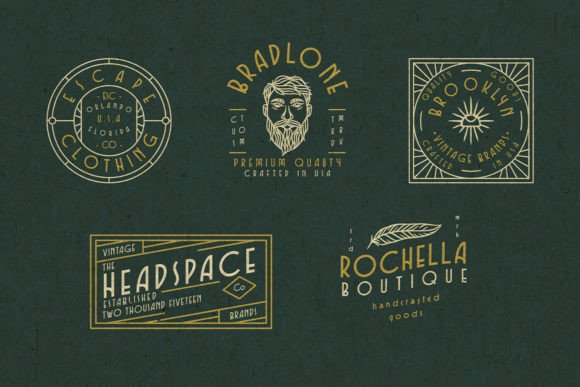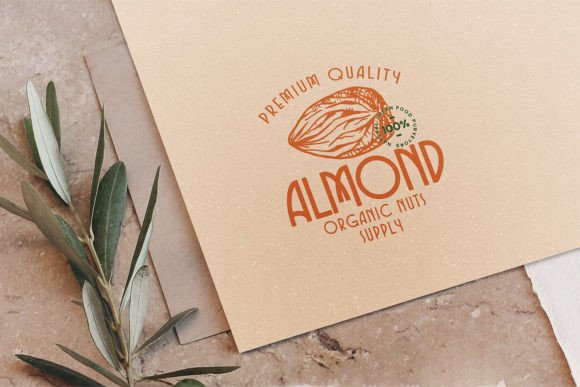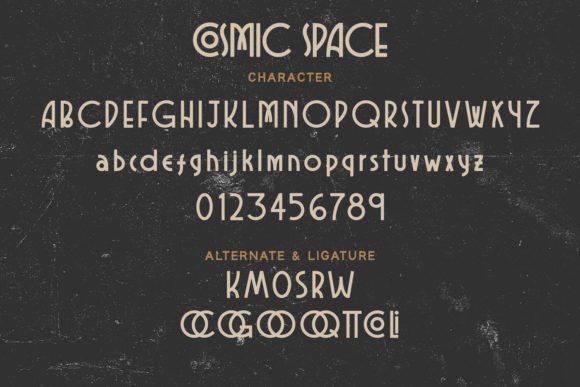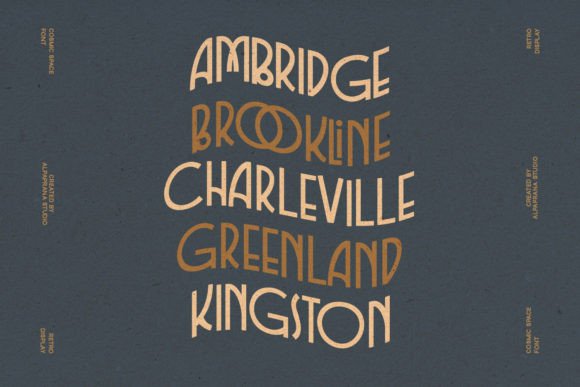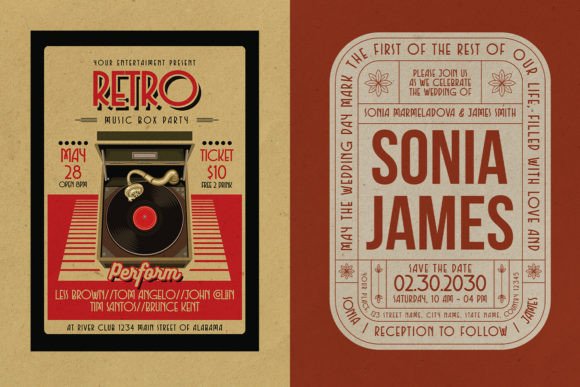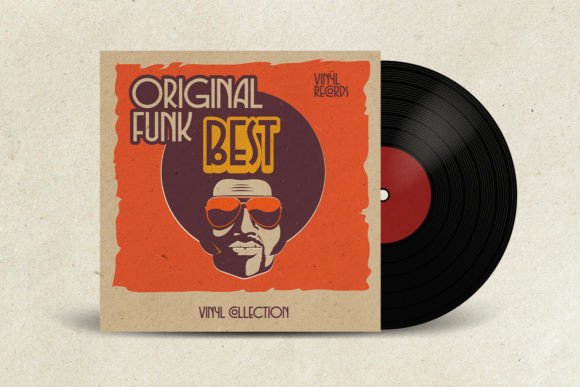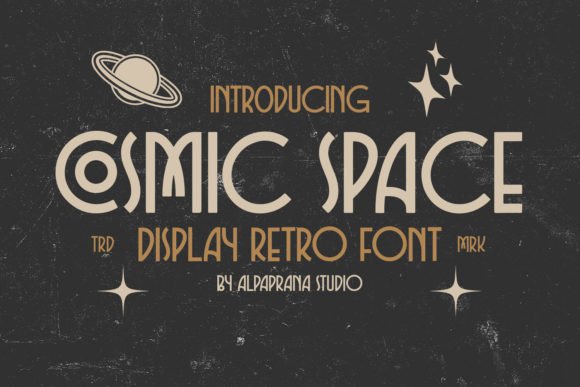
Cosmic Space Font: Elevate Your Designs with a Retro-Futuristic Twist
Are you a designer or crafter looking for a font that can add a touch of nostalgia and modernity to your projects? Look no further than Cosmic Space, a rustic retro font that combines authentic and modern feels. In this article, we’ll explore the features and benefits of Cosmic Space, and how it can elevate your designs for various applications.
What is Cosmic Space Font?
Cosmic Space is a unique font that blends rustic and retro elements with a modern twist. Its design is inspired by the classic typography of the past, but with a fresh and contemporary feel. The font features bold lines, geometric shapes, and a distinctive texture that gives it an authentic, hand-crafted look.
Key Features of Cosmic Space Font
- Retro-Futuristic Design: Cosmic Space has a distinct retro-futuristic design that evokes the nostalgia of the past while feeling modern and fresh.
- Authentic and Modern Feels: The font combines authentic, hand-crafted elements with a modern aesthetic, making it perfect for designers and crafters looking for a unique look.
- High Versatility: Cosmic Space can be used for a wide range of design projects, from magazines and packaging to posters, shopping bags, t-shirts, book covers, and more.
- Ease of Use: The font is easy to read and works well in both digital and print formats, making it a great choice for various applications.
Use Cases for Cosmic Space Font
Cosmic Space is an incredibly versatile font that can be used for various design projects, including:
- Magazines and Editorials: Add a touch of nostalgia and sophistication to your magazine layouts with Cosmic Space.
- Packaging Design: Use Cosmic Space to create eye-catching packaging that stands out on store shelves.
- Posters and Flyers: Create bold and attention-grabbing posters and flyers with Cosmic Space.
- Shopping Bags: Add a personal touch to your shopping bags with Cosmic Space.
- T-Shirts and Apparel: Use Cosmic Space to create unique and stylish designs for t-shirts and other apparel.
- Book Covers: Give your book covers a professional and eye-catching look with Cosmic Space.
- Photography: Use Cosmic Space to add text and captions to your photographs.
- Special Events: Create custom designs for special events, such as weddings, parties, and conferences, with Cosmic Space.
Why Choose Cosmic Space Font?
With so many fonts available, why choose Cosmic Space? Here are a few reasons:
- Unique Design: Cosmic Space has a distinctive design that sets it apart from other fonts.
- High Readability: The font is easy to read, even in small sizes.
- Flexibility: Cosmic Space can be used for a wide range of design projects.
Cosmic Space is a versatile and unique font that can elevate your designs with its retro-futuristic twist. With its authentic and modern feels, high readability, and ease of use, Cosmic Space is perfect for designers and crafters looking for a font that can add a touch of nostalgia and sophistication to their projects. Whether you’re working on a magazine, packaging, poster, or any other design project, Cosmic Space is a great choice.